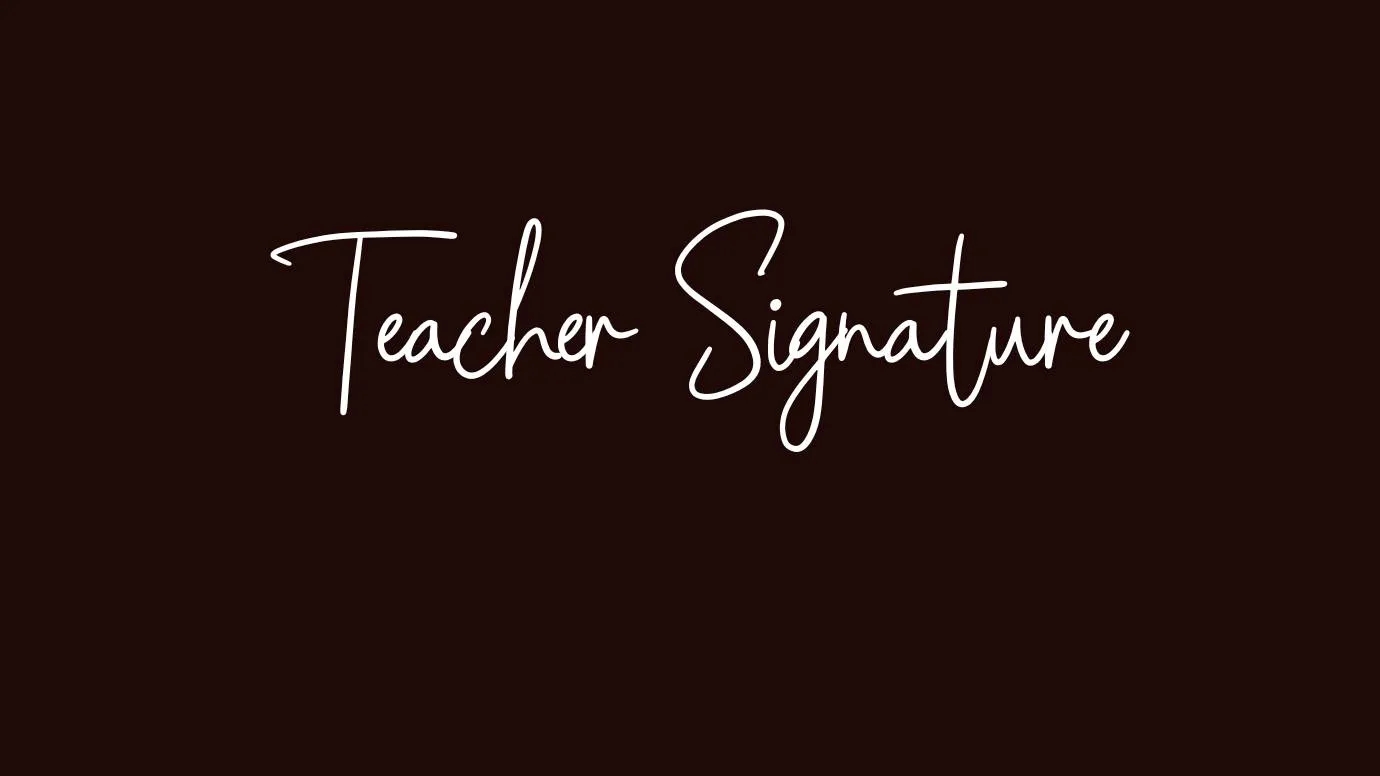
Teacher Signature Font Family is a very elegant handwritten font. It has a calligraphy touch, and you can make all personal and commercial projects using this font. This font is designed by Najmus Tsaqib.
Teacher Signature Font
DesignerNajmus Tsaqib
TypeHandwritten